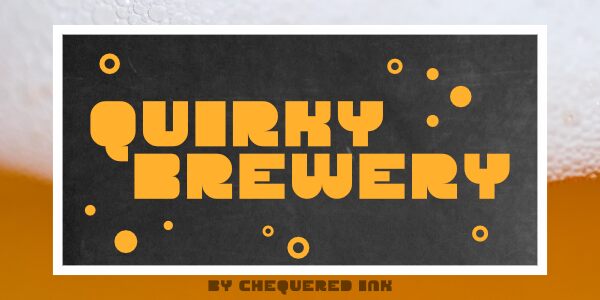
Quirky Brewery Regular
Quirky Brewery, the groovy display font designed by Chequered Ink, is here to add a touch of whimsy to your projects. With its extra-bold weight and expanded width, this font demands attention and exudes a sense of fun.
Perfect for craft beer labels, retro-inspired posters, or quirky branding campaigns, Quirky Brewery will infuse your designs with a playful and unique vibe.
Embrace its uppercase letters and let this font bring your creative ideas to life.